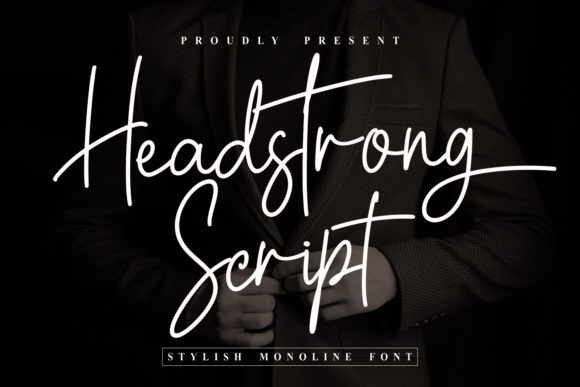
Headstrong Script: A Refined Choice for Elegant Branding
There's a particular quality in a script font that transcends mere letterforms. It’s the feeling of a confident hand, the whisper of luxury, the instant recognition of a brand that takes its visual identity seriously. Headstrong Script is that font. It’s not just a collection of connected letters; it’s a carefully crafted tool for designers and creators who need to communicate sophistication without saying a word. With its chic, flowing lines and thoughtful alternates, this premium font offers a level of refinement that can elevate any project from ordinary to memorable.
The Anatomy of Elegance
What makes Headstrong Script stand out in a crowded field of script typefaces? It begins with its core personality: a blend of classic calligraphic influence and modern clarity. The letterforms exhibit a graceful, rhythmic flow, with consistent thick and thin strokes that create a natural visual harmony. Unlike some overly ornate scripts, Headstrong Script maintains excellent legibility, even at smaller sizes. This is crucial for real-world applications where a font must work as hard as it looks good.
The true power of this creative font, however, lies in its versatility. The included stylistic alternates and ligatures are not afterthoughts; they are integral to its design. These OpenType features allow you to tailor the text to your specific needs. Need a more dramatic capital letter for a logo? Swap in an alternate. Want to avoid awkward character combinations in a headline? Use a ligature. This level of control is what separates a standard display font from a professional design asset. And because it is PUA encoded, accessing every glyph and swash is straightforward in any design software, from Adobe Illustrator to Canva.
Where Headstrong Script Truly Shines
Understanding a font's ideal environment is key to using it effectively. Headstrong Script excels in contexts where brand perception, emotional connection, and visual hierarchy are paramount. It’s a natural fit for logo design, where its unique character can become the cornerstone of a brand's visual identity. The font's elegance suggests quality and attention to detail, making it perfect for luxury goods, boutique services, wedding planners, and high-end consultants.
Beyond the logo, its applications are extensive:
- Editorial & Publishing: Use it for magazine mastheads, book covers, or chapter headings to add a touch of editorial sophistication.
- Packaging Design: For artisanal products, cosmetics, or gourmet foods, Headstrong Script communicates craftsmanship and care.
- Digital Presence: In web design, it can create stunning hero sections or impactful pull quotes. For social media graphics, it ensures posts look polished and professional, helping content stand out in a fast-scrolling feed.
- Marketing Collateral: Business cards, letterheads, and brochure headers benefit from its refined personality, making printed materials feel more valuable.
- Personal Projects: From custom wedding invitations to blog headers or crafting projects, it adds a personal, handcrafted touch with a professional finish.
Integrating Headstrong Script into Your Workflow
Choosing the right font is only half the battle; implementing it successfully is what delivers results. Here’s practical guidance for working with this script font.
Strategic Font Pairing
A script font, no matter how beautiful, rarely works well for body copy. Its strength is in display contexts. The key is to pair it with a complementary typeface. For a balanced, professional look, combine Headstrong Script with a clean sans serif font or a sturdy serif font. A simple, geometric sans serif can provide a modern, approachable counterpoint, while a classic serif can enhance the traditional, elegant feel. Always test your pairings by setting a few lines of text together to check for contrast in style and weight, not competition.
Evaluating Project Fit
Ask yourself: Does this project call for warmth, personality, and a human touch? If the goal is to convey data-driven precision or stark minimalism, a script might not be the best choice. Headstrong Script is for projects that need to connect on an emotional level. It’s for brands that tell a story. Review the included styles and alternates before starting a project—this foresight can inspire creative directions you hadn't initially considered.
Readability and Licensing
Always prioritize readability. Use Headstrong Script for headlines, logos, and short phrases where its intricate details can be appreciated. Avoid setting long paragraphs with it. Finally, for any commercial project—from client work to products you sell—ensure you have the correct commercial font license. This protects you legally and supports the type designers who create these essential tools.
In the end, a font like Headstrong Script is more than a design choice; it's a strategic decision. It’s for the entrepreneur who understands that the curve of a letter can build trust, for the designer who knows that typographic detail elevates a concept, and for the creator who believes that beauty and function must coexist. When your project demands a voice of quiet confidence and undeniable style, this typeface delivers.